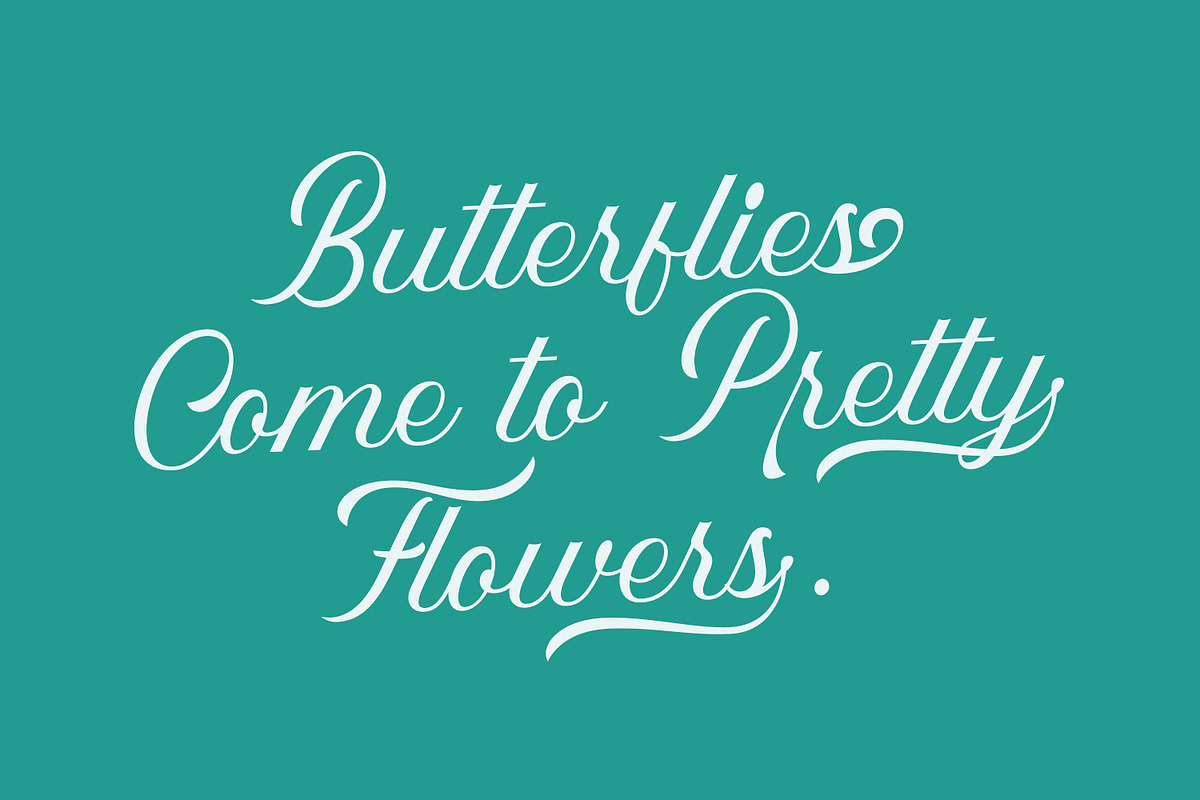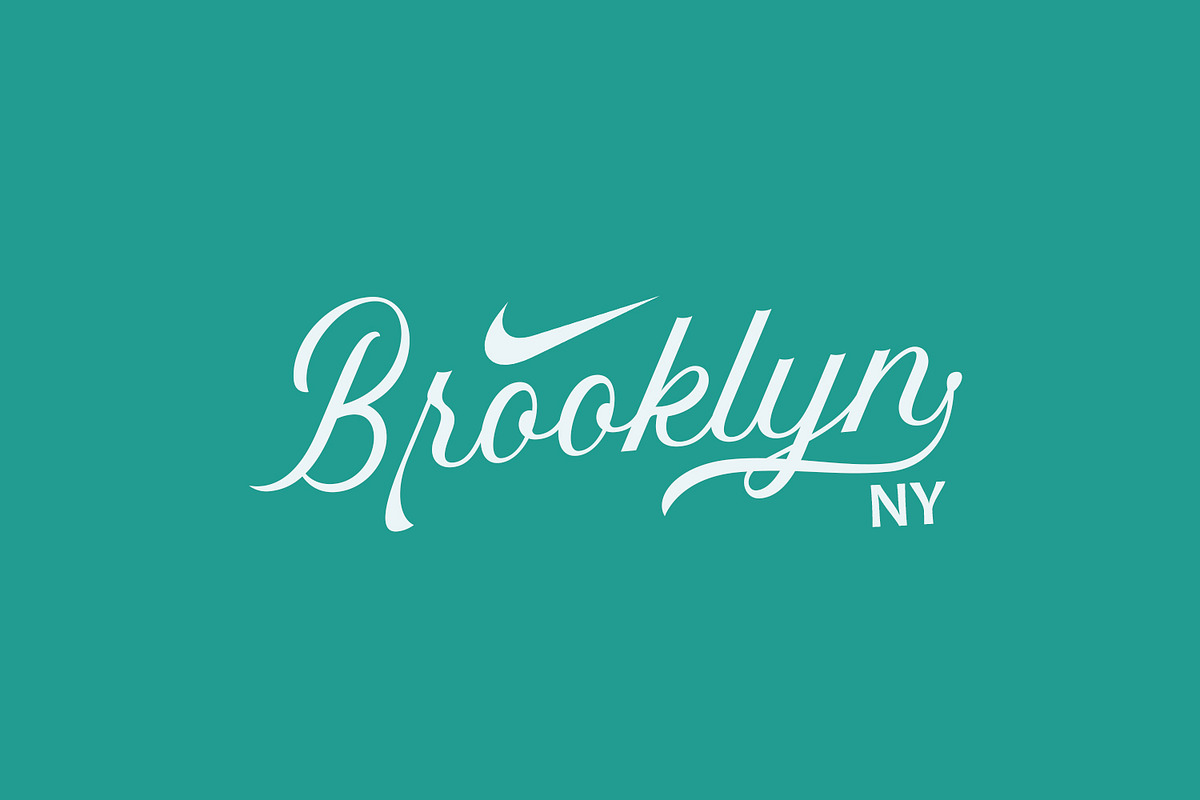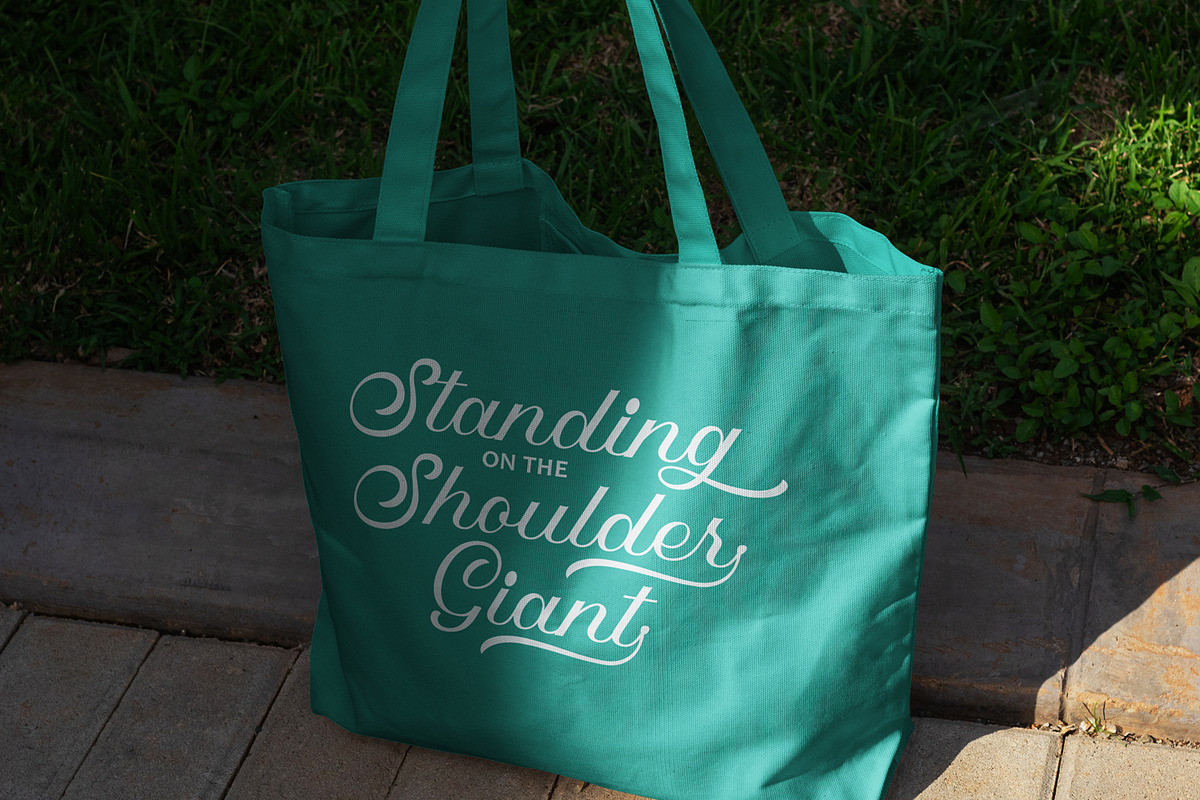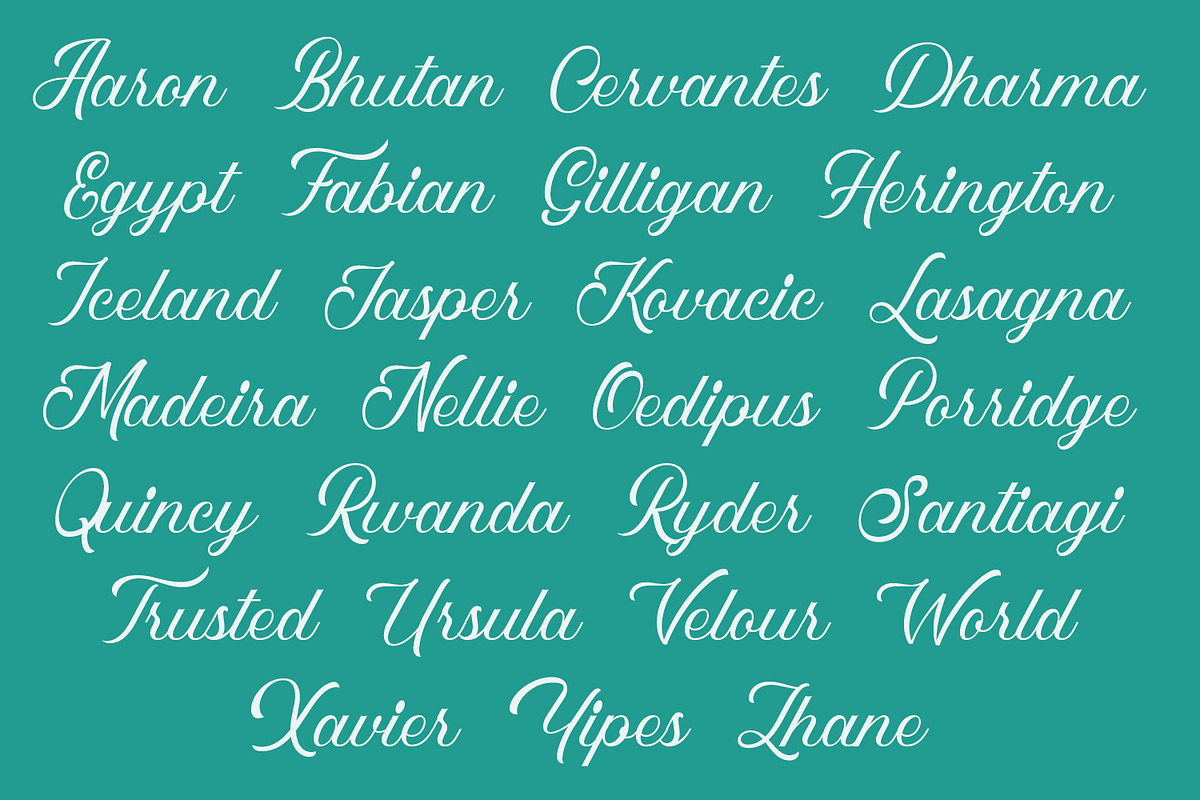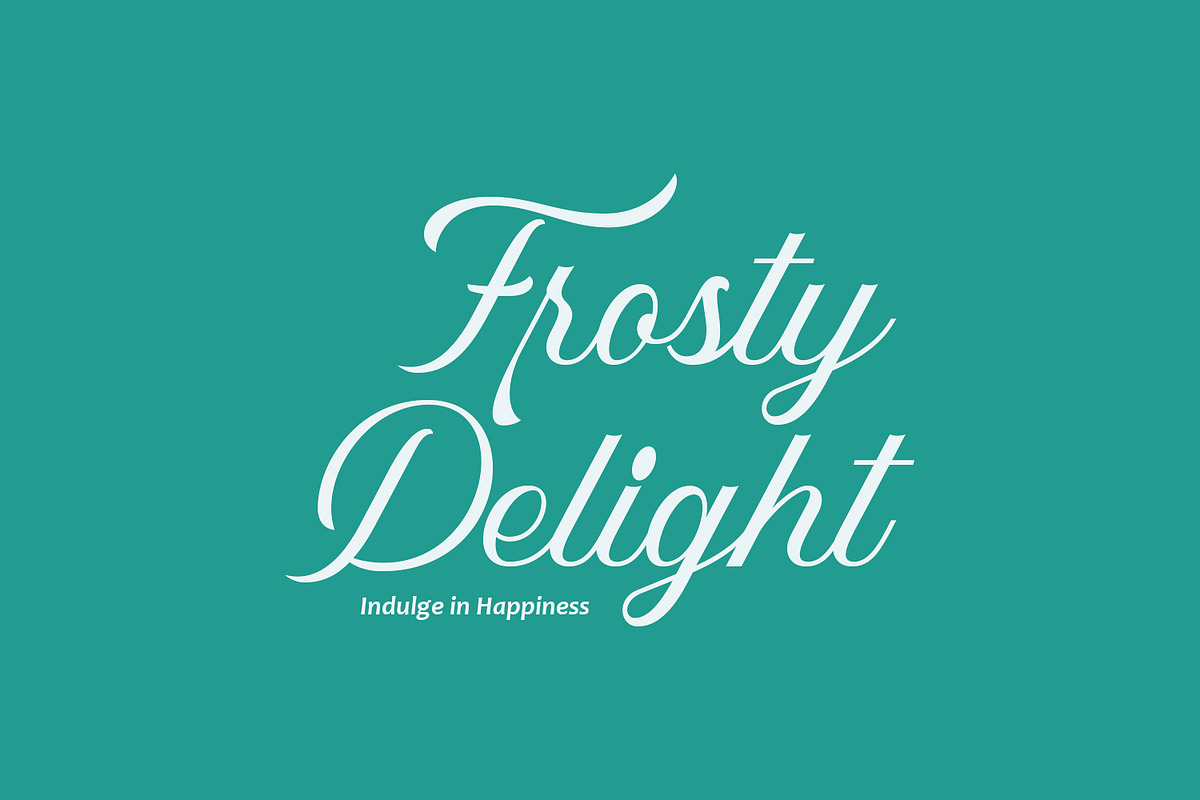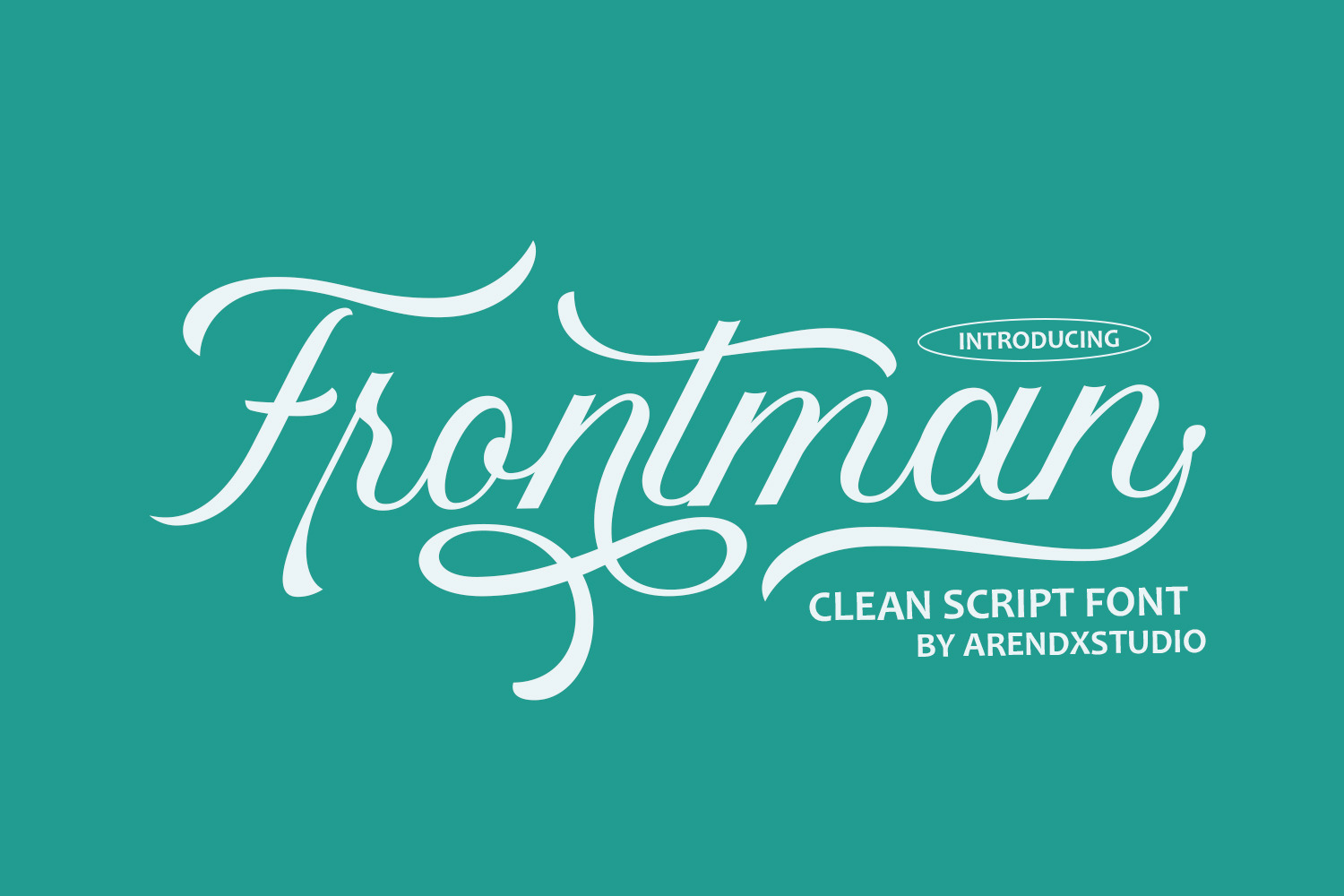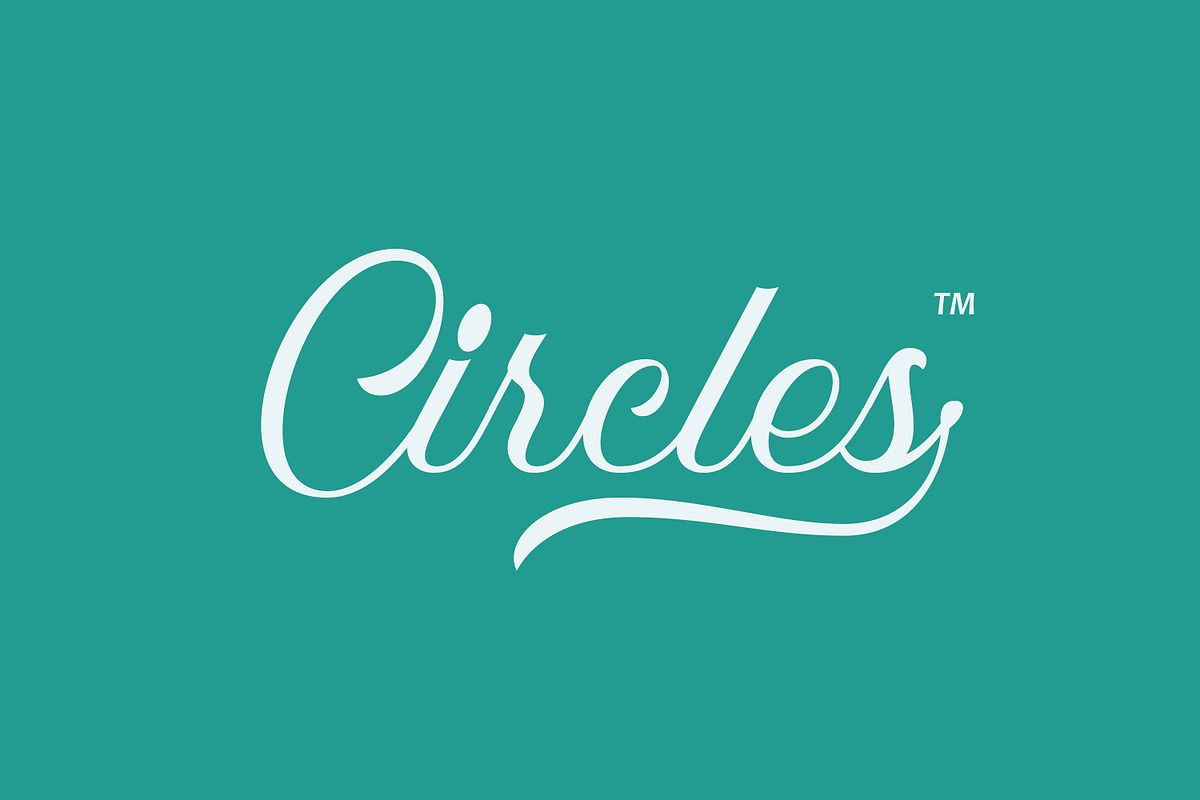
Frontman - Clean Script Font
### Frontman: Clean Script Font
Font Name: Frontman
Type: Clean Script Font
Overview: Frontman is a clean and modern script font that combines simplicity with elegance. Designed to be versatile and easy to read, Frontman is perfect for a wide range of design projects, from branding to social media graphics.
#### Key Features:
Clean Design:
- Smooth Lines: The font features smooth, flowing lines that create a sleek and polished look.
- Minimalistic Style: With its minimalistic approach, Frontman maintains a clean and uncluttered appearance, making it highly legible.
Versatile Applications:
- Branding and Logos: Ideal for creating modern and sophisticated brand identities that require a clean and professional look.
- Social Media Graphics: Enhances the visual appeal of social media posts with its stylish and easy-to-read script.
- Website Headers: Perfect for website headers, providing a welcoming and elegant touch.
Character Set:
- Complete Alphabet: Includes uppercase and lowercase letters, numerals, and punctuation marks.
- Ligatures and Alternates: Offers a selection of ligatures and alternative characters for added customization and unique styling.
Additional Features:
- High Legibility: Designed for readability, Frontman ensures that each character is clear and distinct.
- Stylish and Modern: The font combines contemporary aesthetics with classic script elements, making it suitable for various design styles.
#### Usage Examples:
- Logo Design: Frontman’s clean and modern script style makes it perfect for creating sleek and professional logos for businesses and personal brands.
- Social Media: Use Frontman to create eye-catching social media graphics that stand out and convey messages clearly.
- Product Packaging: Add a touch of elegance to product labels and packaging with the smooth and stylish lettering of Frontman.
#### Conclusion: Frontman is a clean script font that brings together simplicity and elegance in a modern design. Its versatility and readability make it an excellent choice for a wide range of applications, from branding to social media. With Frontman, you can achieve a professional and polished look that is both stylish and accessible.